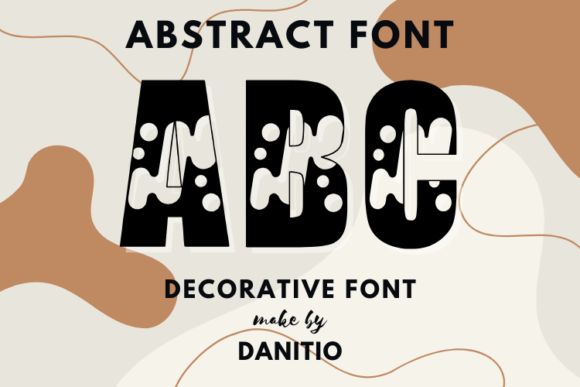
Have you ever stared at a blank page, searching for the perfect font to bring your design to life? Maybe you’ve spent hours browsing through fonts, only to end up with something that’s just…meh? We’ve all been there. But what if I told you there’s a font that’s guaranteed to put a smile on your face and add a touch of whimsy to your designs?
Meet Abstract Font, a decorative font that’s all about embracing cuteness and uniqueness. Whether you’re creating birthday cards, t-shirts, or mugs, this font is the perfect addition to any design. With its friendly and cute appearance, Abstract Font is sure to brighten up any project and make it stand out from the crowd.
As a designer, you know how valuable it is to have a font that can add personality and charm to your work. Abstract Font is a valuable tool in your design arsenal, and its versatility makes it perfect for a wide range of projects. So why settle for boring when you can have cute and quirky? Give Abstract Font a try and see the difference it can make in your designs!
Abstract Font Key Features
- Font Style: Abstract Font is a unique, hand-drawn sans-serif typeface with a geometric twist, offering a modern and artistic look.
- Character Count: The font family includes over 400 glyphs, covering a wide range of languages and characters.
- Unique Characteristics: Abstract Font features a distinctive, hand-crafted feel, with subtle imperfections and variations that give it a human touch.
Designer Review: Abstract Font
Overall, I think the Abstract Font is a unique and eye-catching addition to any design project. ✨ One of the things that stands out to me is the high level of customization that’s available, allowing you to adjust the shape, size, and color of the font to fit your specific needs. This flexibility makes it a great choice for designers who want to add a personal touch to their work. ✨ The font also looks great in a variety of contexts, from headings and titles to body text. ✨
That being said, there are a few limitations to consider. ⚠️ One of the main issues I’ve encountered is the font’s lack of legibility at smaller sizes. This can make it difficult to read, especially for users who have vision impairments. Additionally, the font’s complexity can make it difficult to pair with other fonts, which may limit its versatility. ⚠️
- High level of customization
- Unique and eye-catching design
- Great for headings and titles
- Flexible and adaptable
- Can be challenging to read at smaller sizes
- May be difficult to pair with other fonts
Overall, I’d give the Abstract Font 4 out of 5 stars. While it’s a great choice for designers who want to add a unique touch to their work, its limitations should be carefully considered before using it in a project.
The Abstract Font is ideal for:
– Creating eye-catching headings and titles.
– Adding a unique touch to digital and print materials.
– Designing branding materials such as logos and business cards.